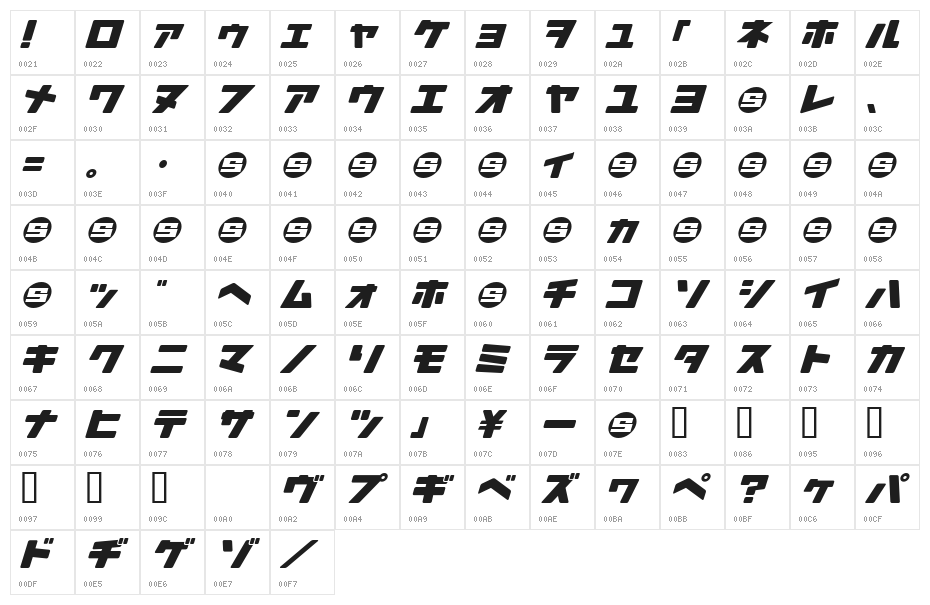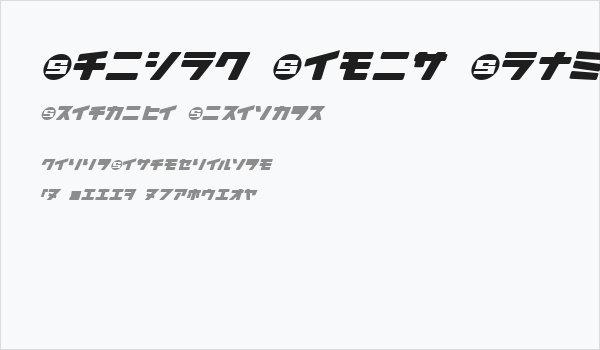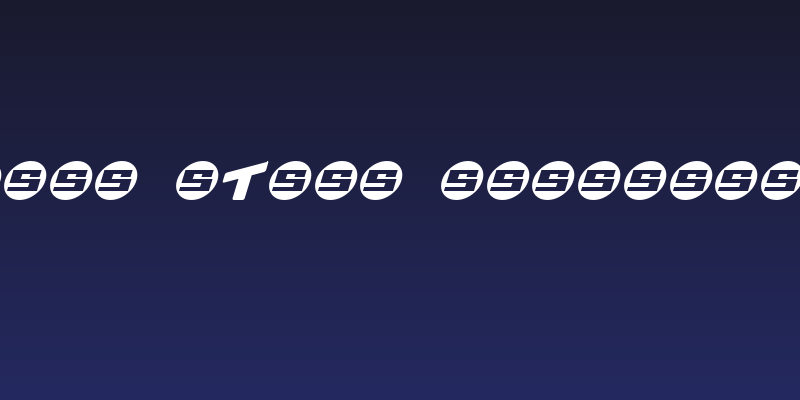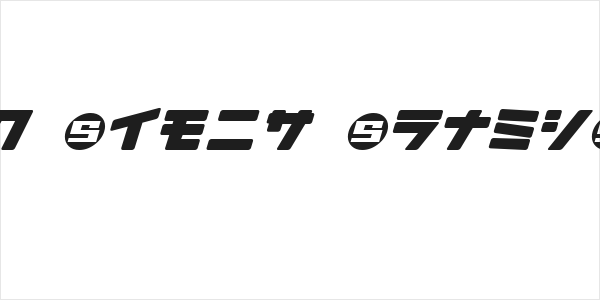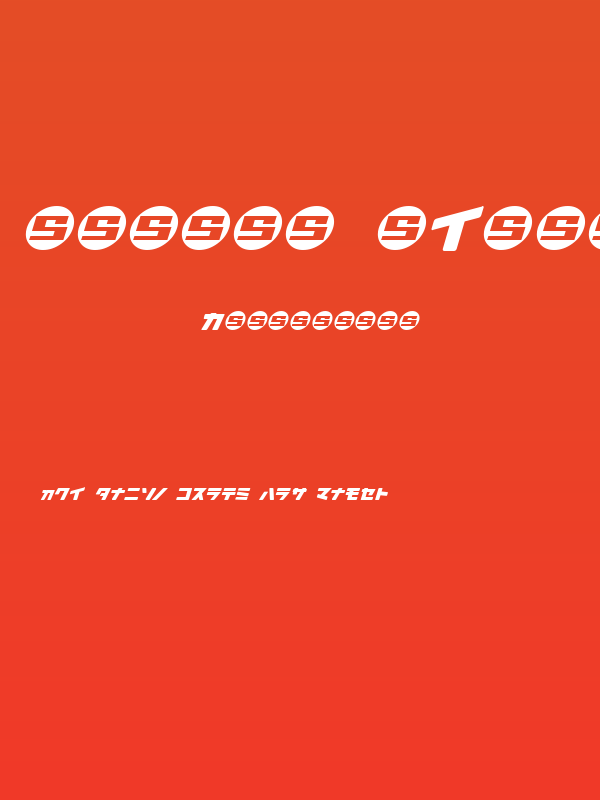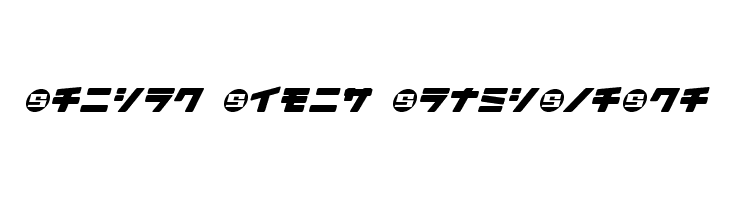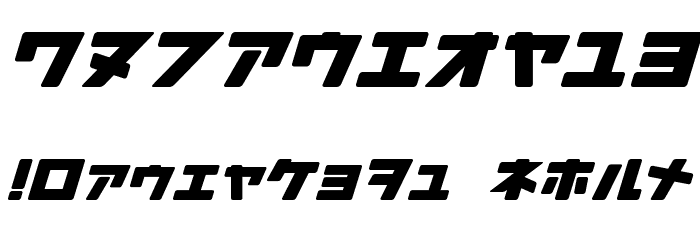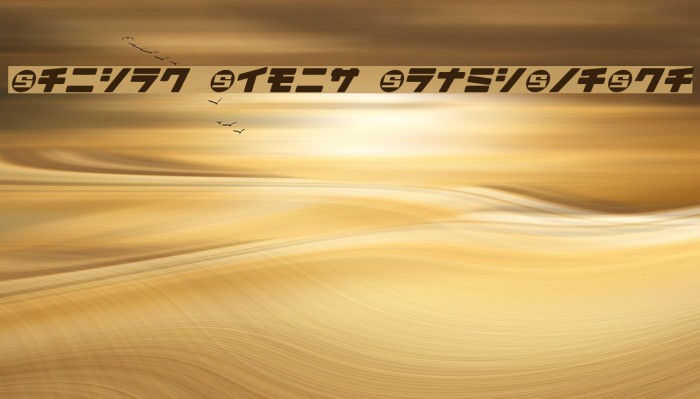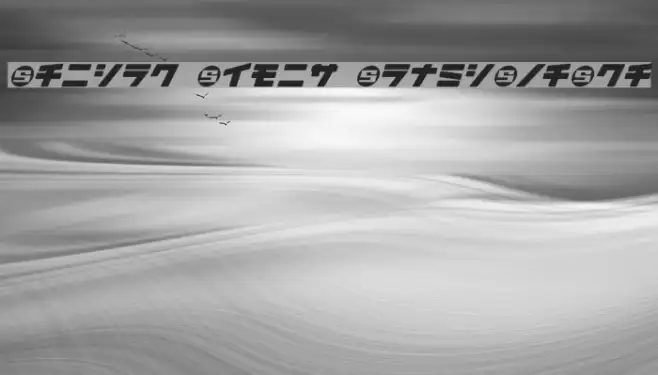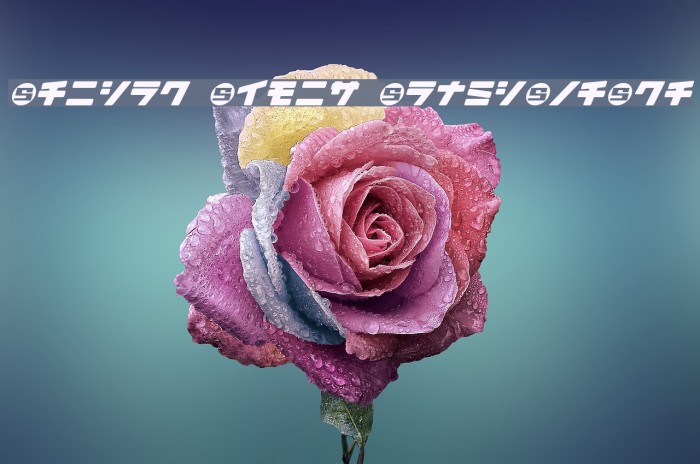
Daidoh Remix RoundJkaSha Font
Daidoh Remix RoundJkaSha Description
This font features a bold and dynamic style with a strong geometric influence. The characters are rounded with a distinct futuristic flair, making them stand out with a unique visual appeal. The strokes are thick and consistent, providing a sense of stability and strength. The design incorporates a modern aesthetic with a touch of retro, suitable for creating eye-catching headlines or logos. The characters are evenly spaced, ensuring readability while maintaining a compact appearance. This font is ideal for projects that require a bold statement and a contemporary look.
| Proposed Projects | Ideal for branding, logos, headlines, and any project requiring a strong visual impact. |